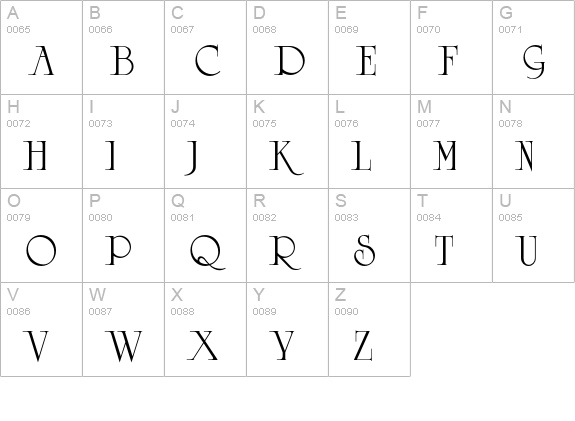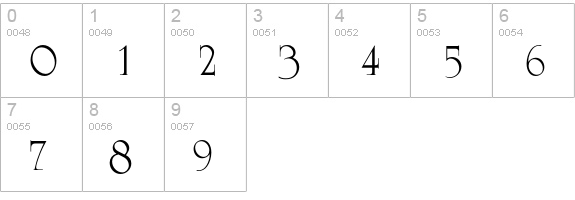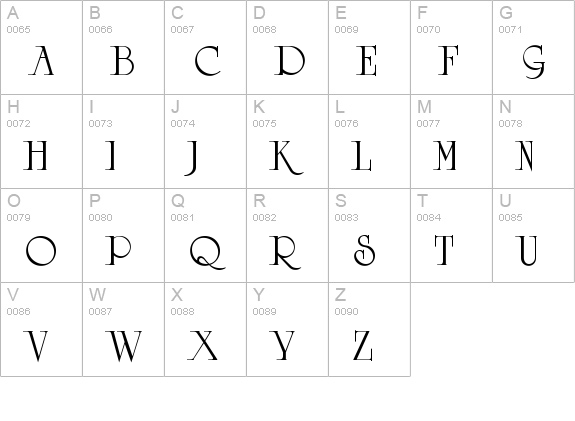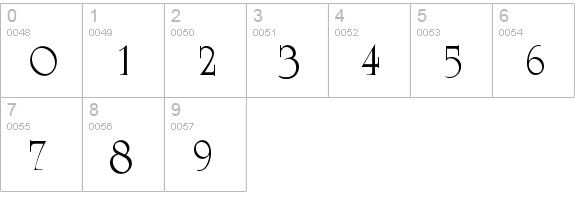
London font is a modern and elegant typeface that adds a touch of sophistication to any design project. With its sleek lines and stylish curves, this font is perfect for creating eye-catching headlines, logos, and branding materials. The versatility of London font makes it suitable for a wide range of design applications, from print to digital media. What makes London font even more appealing is that it is available for free download at FontsMarket.com. This means that you can easily access this high-quality font without any cost, making it a valuable addition to your font collection. Whether you are a designer looking to elevate your projects or a business owner in need of a professional font for your branding, London font is a fantastic choice that won't break the bank. Download it today and start creating stunning designs with this beautiful typeface.